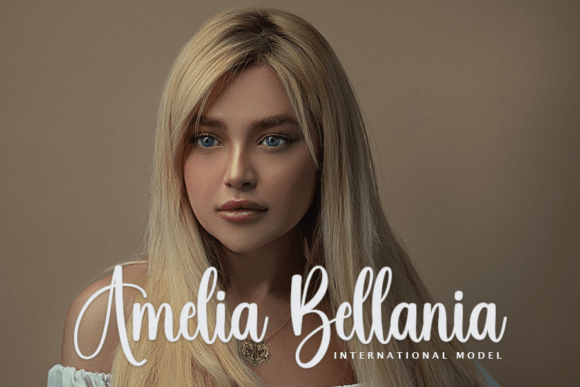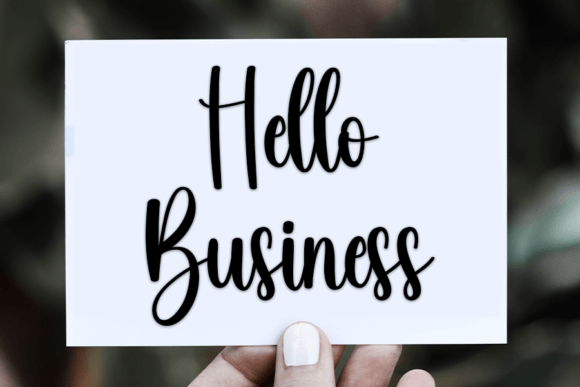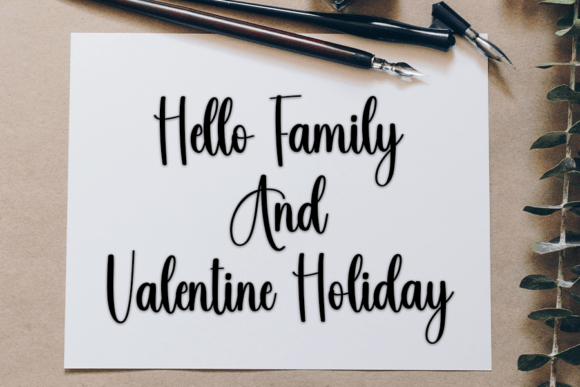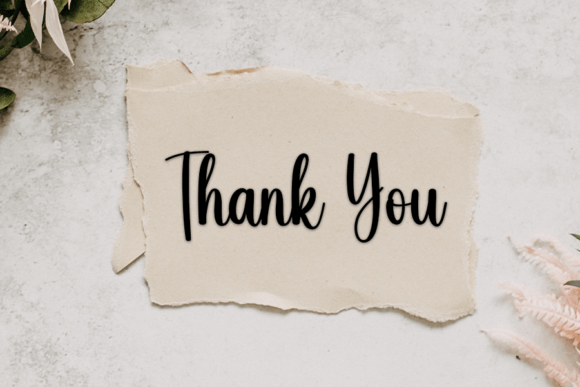
The Perfect Font for Your Creative Projects
Have you ever been stuck on a design project, scrolling through font options, and suddenly stumbled upon the perfect match? That’s exactly what happened to me when I discovered the Ballon Font. Its unique, handwritten style immediately caught my attention, and I knew I had to learn more.
The Ballon Font is a modern, cool, and versatile font designed for various creative purposes. Whether you’re working on digital designs, crafting, creating presentations, or making greeting cards, this font has the potential to be your go-to choice for any occasion. Its value lies in its ability to add a personal touch to your projects, making them stand out from the crowd.
Ballon Font Key Features
- Unique Characteristics: The Ballon Font features a unique, rounded design with subtle curves, giving it a friendly and approachable feel.
Ballon Font Review
Ballon Font is a beautiful and elegant script font that’s perfect for creating a sophisticated and luxurious feel in your designs. ✨ It’s great for use in branding, packaging, and advertising materials where you want to make a statement.
- ✨ Unique and distinctive letterforms that add a touch of whimsy and personality to your designs.
- ✨ Beautiful connections between letters that give the font a flowing and organic feel.
- ✨ Highly legible and easy to read, even at small font sizes.
- ⚠️ Limited character set, which may make it difficult to use in languages that require a wide range of characters.
- ⚠️ May not be suitable for use in body text, as it can be quite decorative and overwhelming.
Overall, I think Ballon Font is a great choice for designers who want to add a touch of elegance and sophistication to their designs. However, it’s not a one-size-fits-all solution, and you should carefully consider whether it’s the right fit for your project.
Tips for Getting the Most Out of Ballon Font
Use Ballon Font to add a playful touch to your designs, especially for children’s products, party invitations, and other fun applications. Experiment with different font sizes, colors, and styles to create visually appealing effects.
Ballon Font is commonly used for:
• Children’s products, such as toys, games, and educational materials
• Party invitations and decorations
• Social media graphics and ads
• Advertising and marketing materials